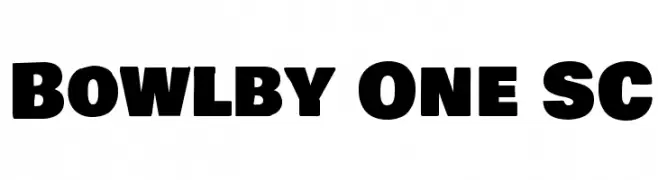
A bold, rounded font with a modern and playful style.
A modern, geometric font with rounded edges and consistent stroke widths.
A clean, geometric font with rounded edges and consistent line weights.
A bold, impactful font with thick strokes and a modern style.
A bold, impactful typeface with thick strokes and strong presence.
A bold, heavy font with a strong, geometric style ideal for impactful headlines.
A bold, geometric font with rounded edges and a strong presence.
A bold, impactful font with thick, rounded strokes for strong visual statements.